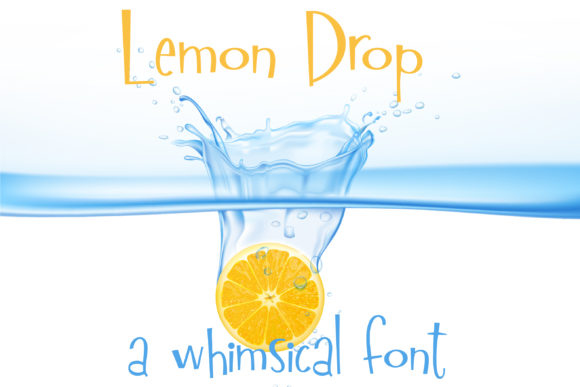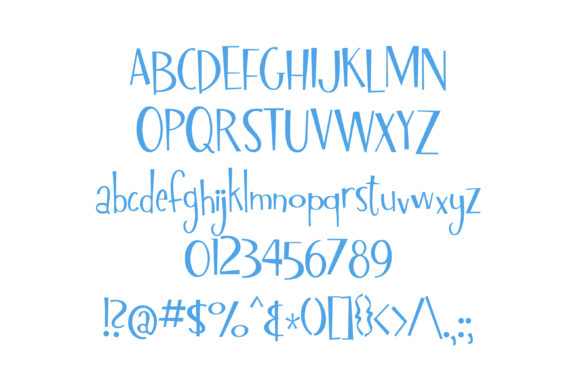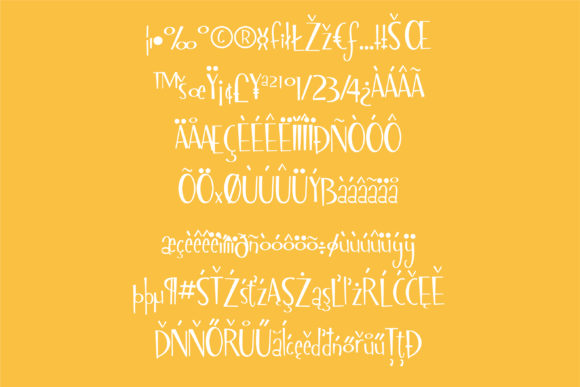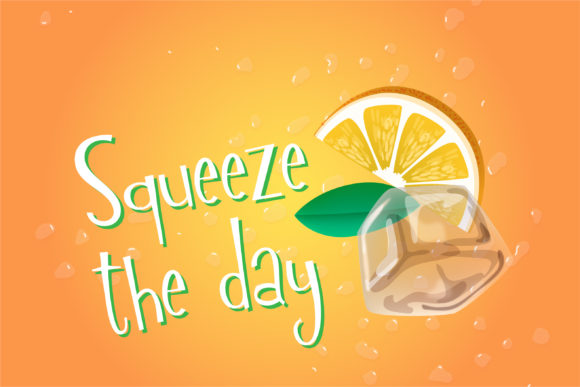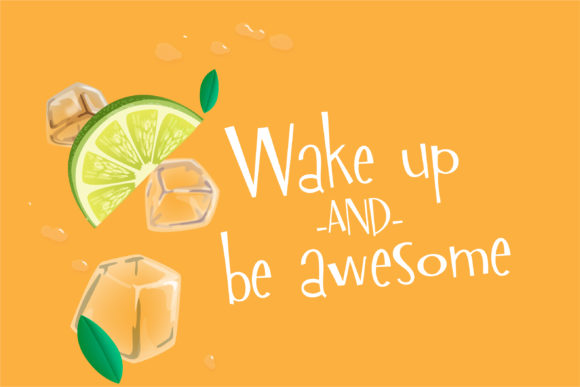
Lemon Drop Font
About Lemon Drop Font
This hand-crafted, sans serif font has a bit of a whimsical, retro feel. Use it to add a sour, but fun feel to any design project!